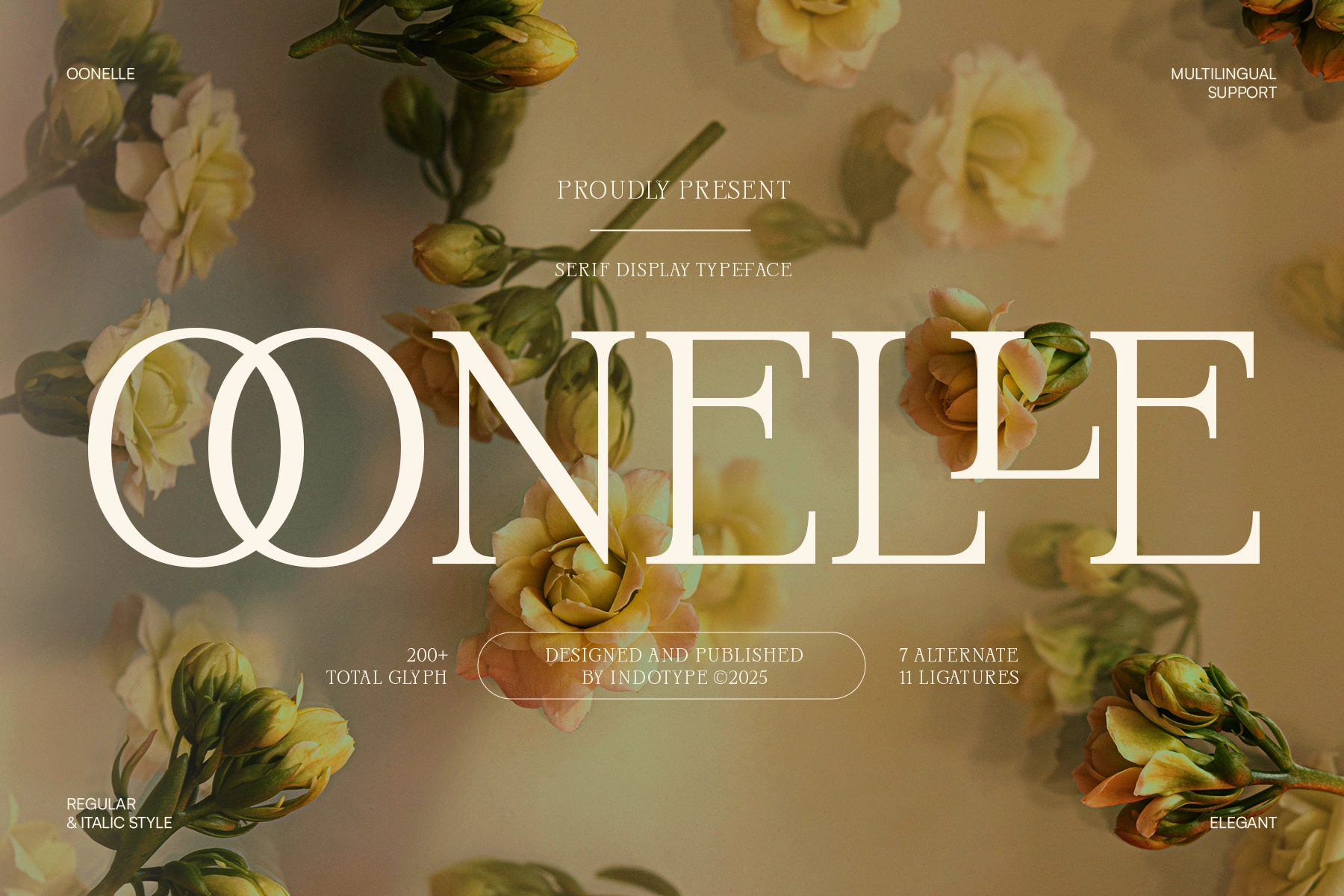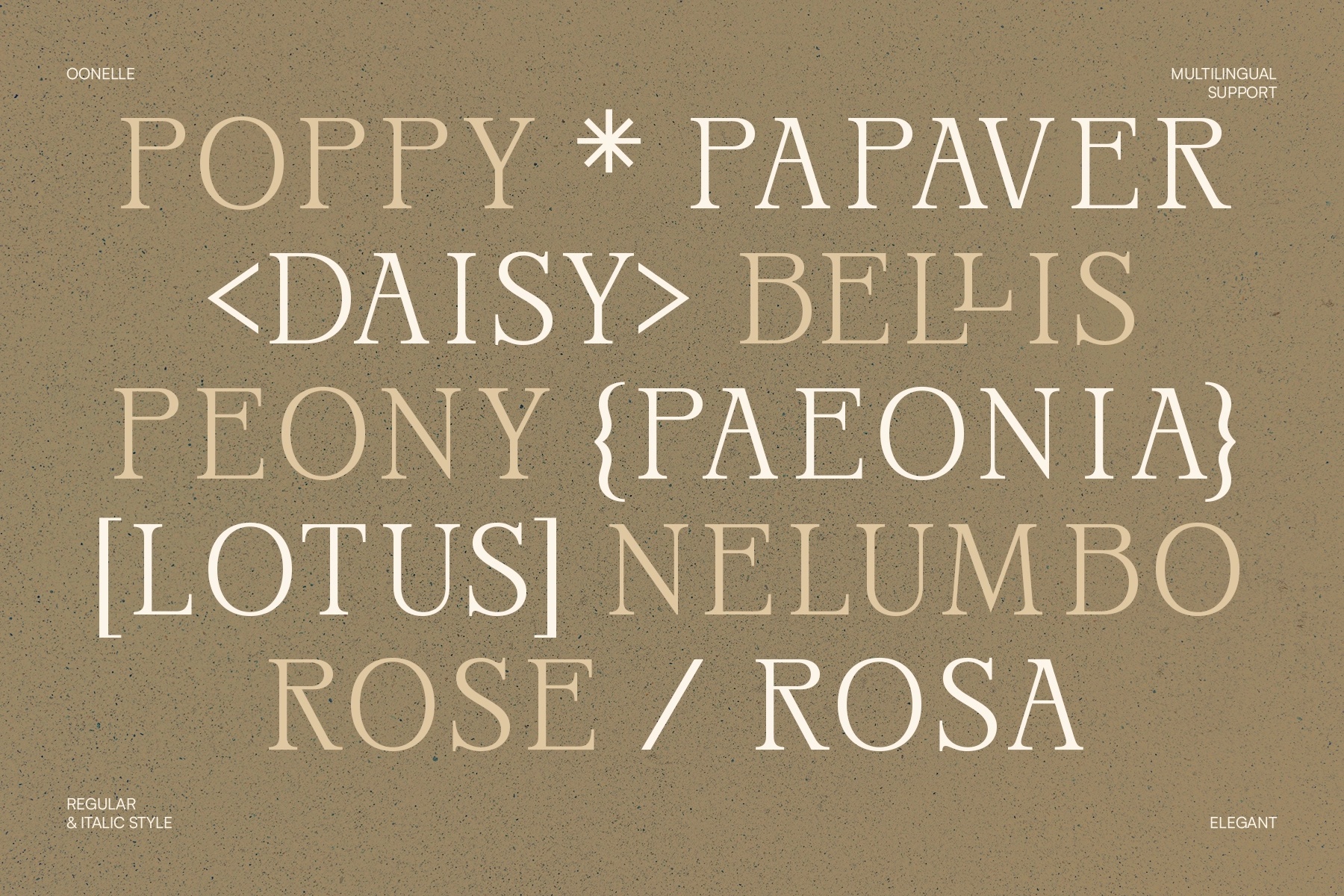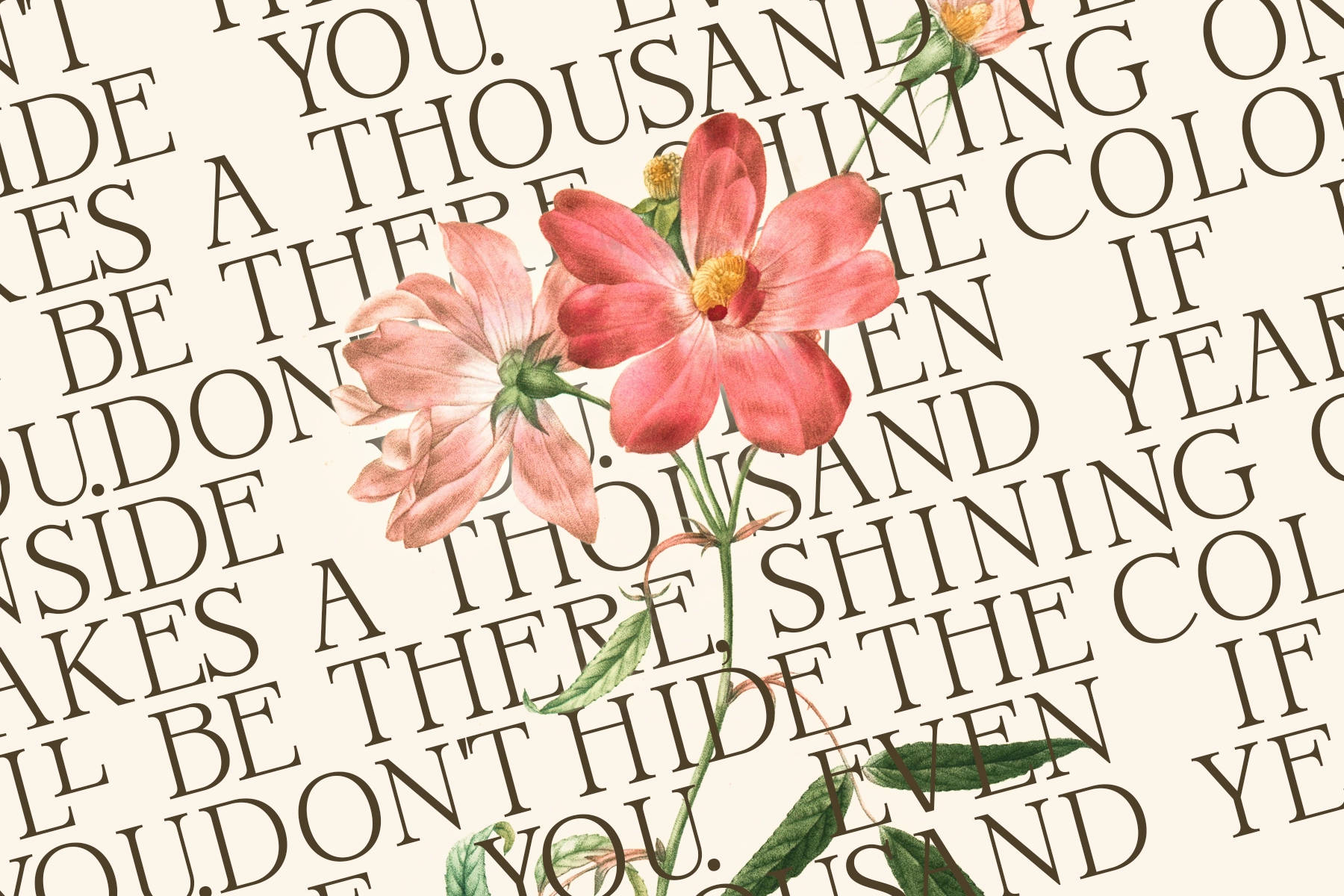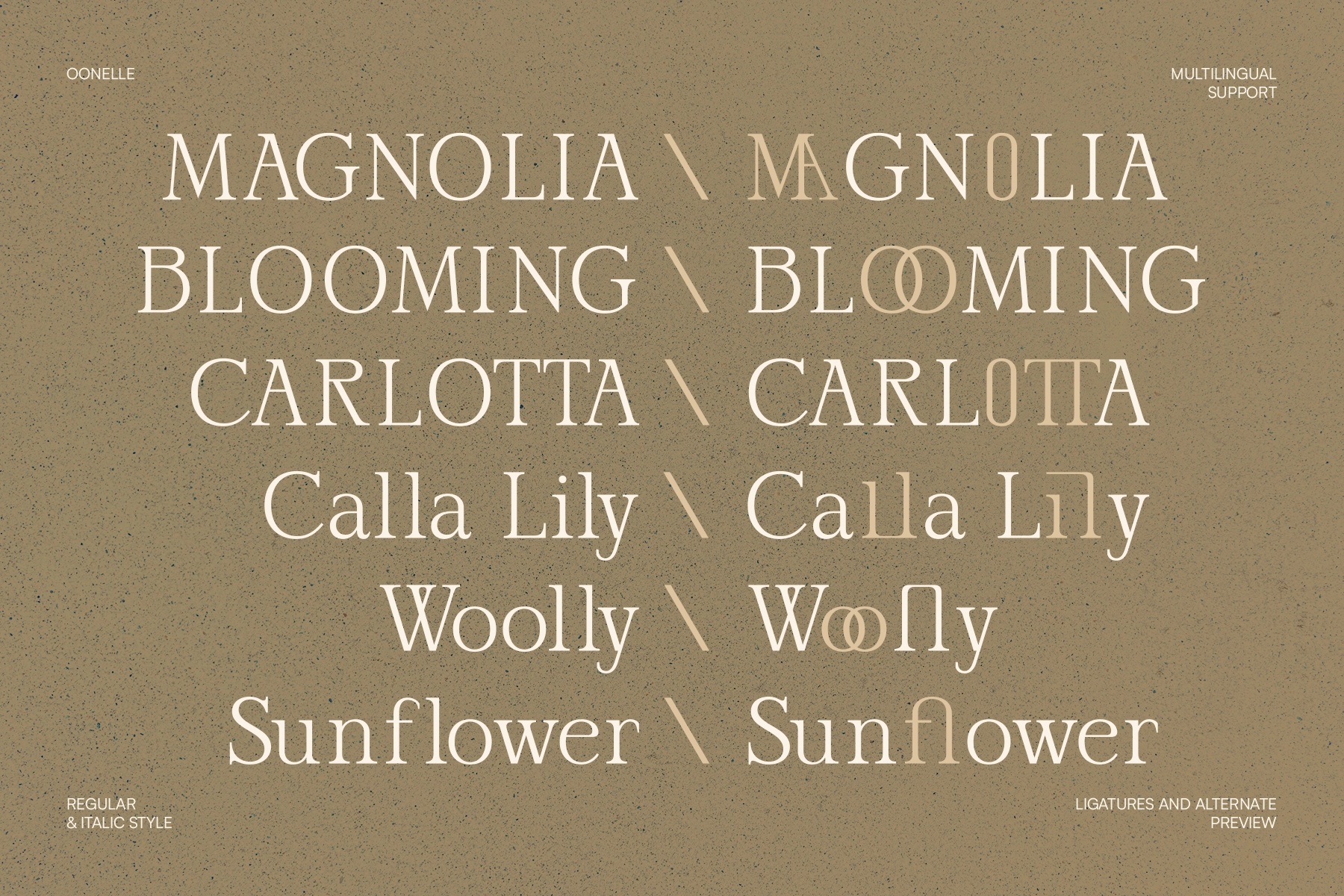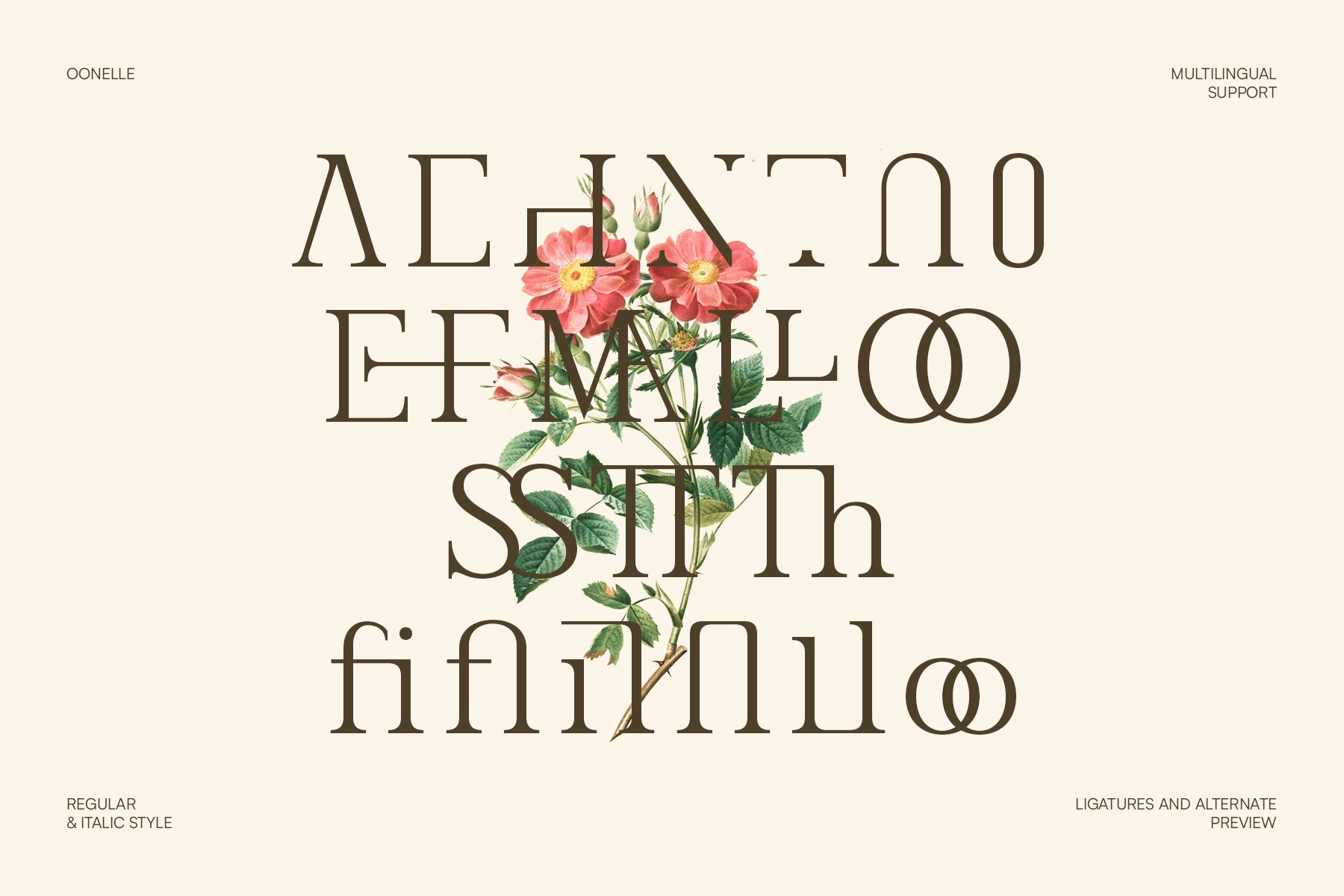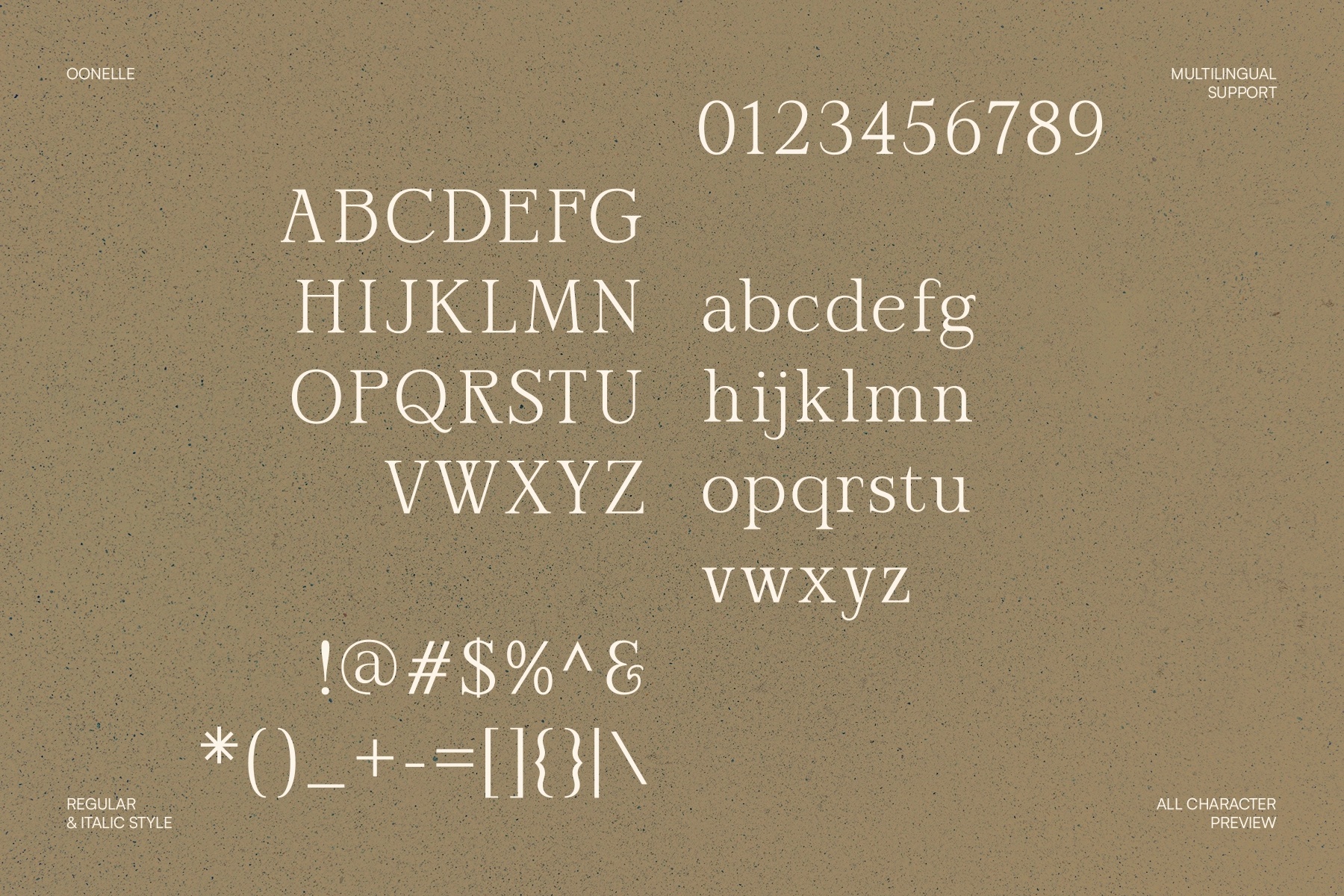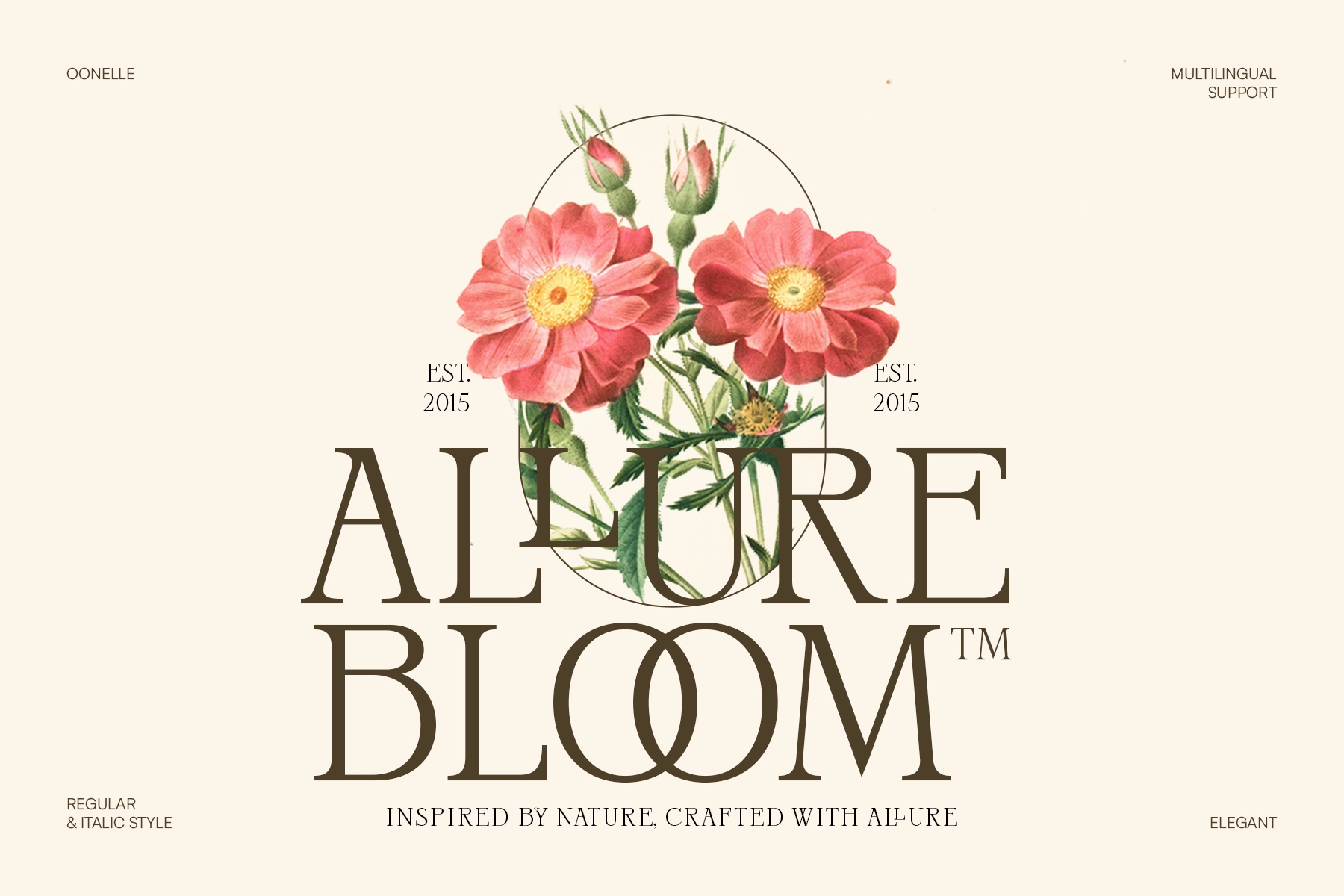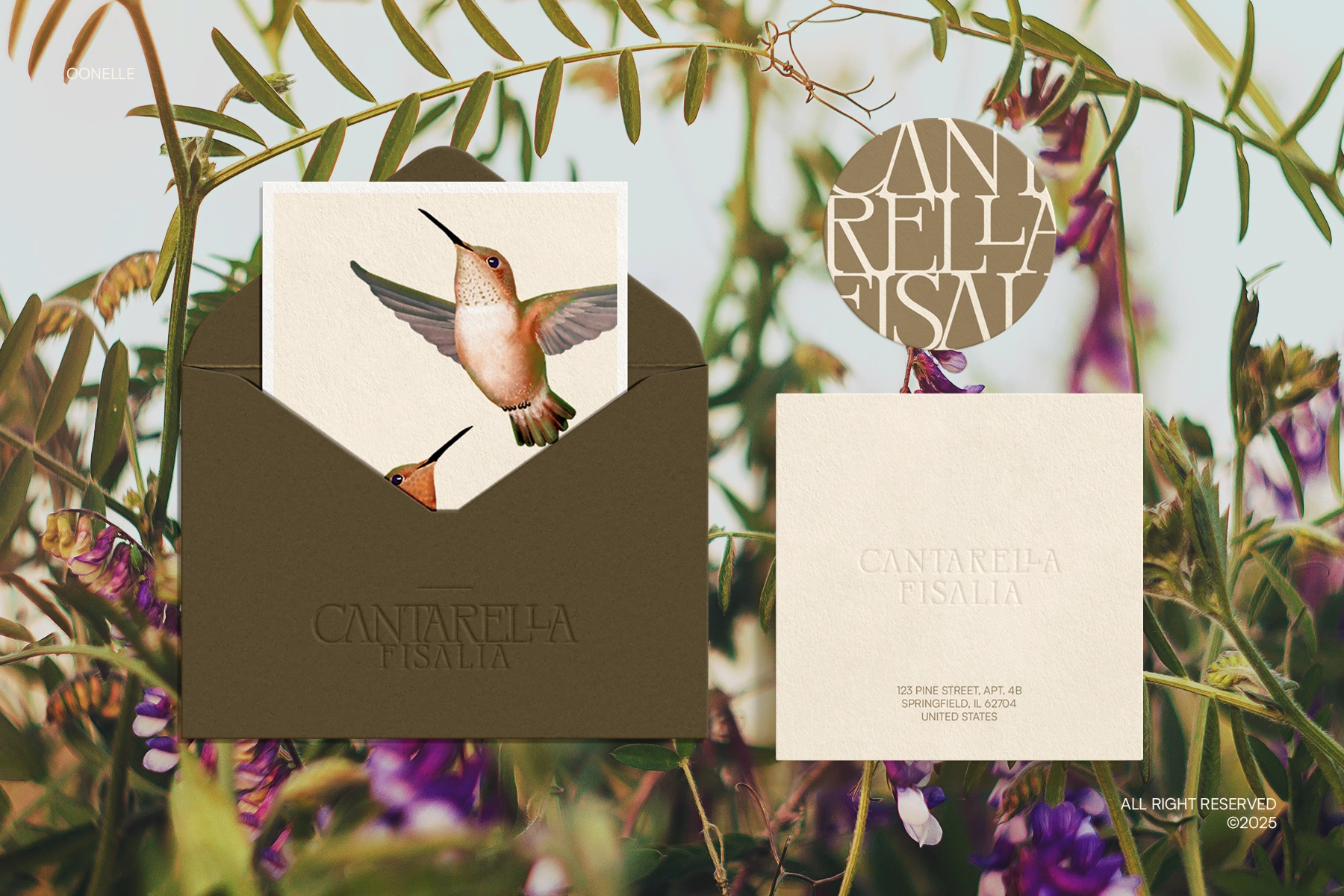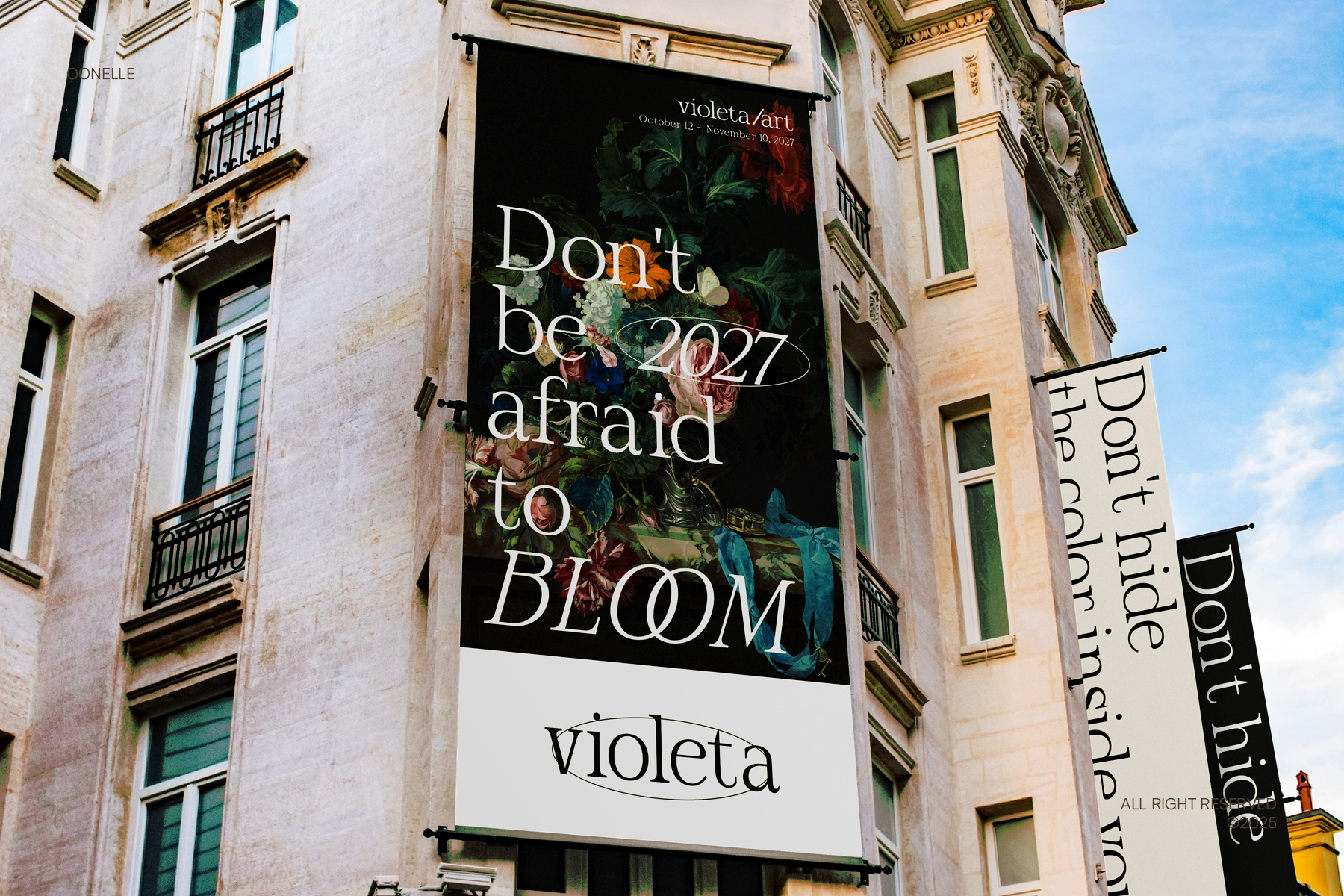
Oonelle - Elegant Serif Font
This elegant serif has tall display proportions, delicate contrast, and refined decorative details that give each word a polished floral character. Its crisp serifs, soft curves, and graceful ligatures are ideal for typography that needs poise, clarity, and a luxury tone.
Oonelle works beautifully for fashion editorials, boutique logos, wedding invitations, perfume labels, beauty packaging, floral branding, magazine covers, restaurant identities, stationery, lookbooks, social media quotes, premium product launches, and website headers. The alternate characters and ligatures add a custom look to short phrases, names, and display titles without making the layout work too hard for compliments.
- 2 styles: Regular, Italic
- 7 alternates
- 11 ligatures
- 200+ total glyphs
- Numbers & punctuation